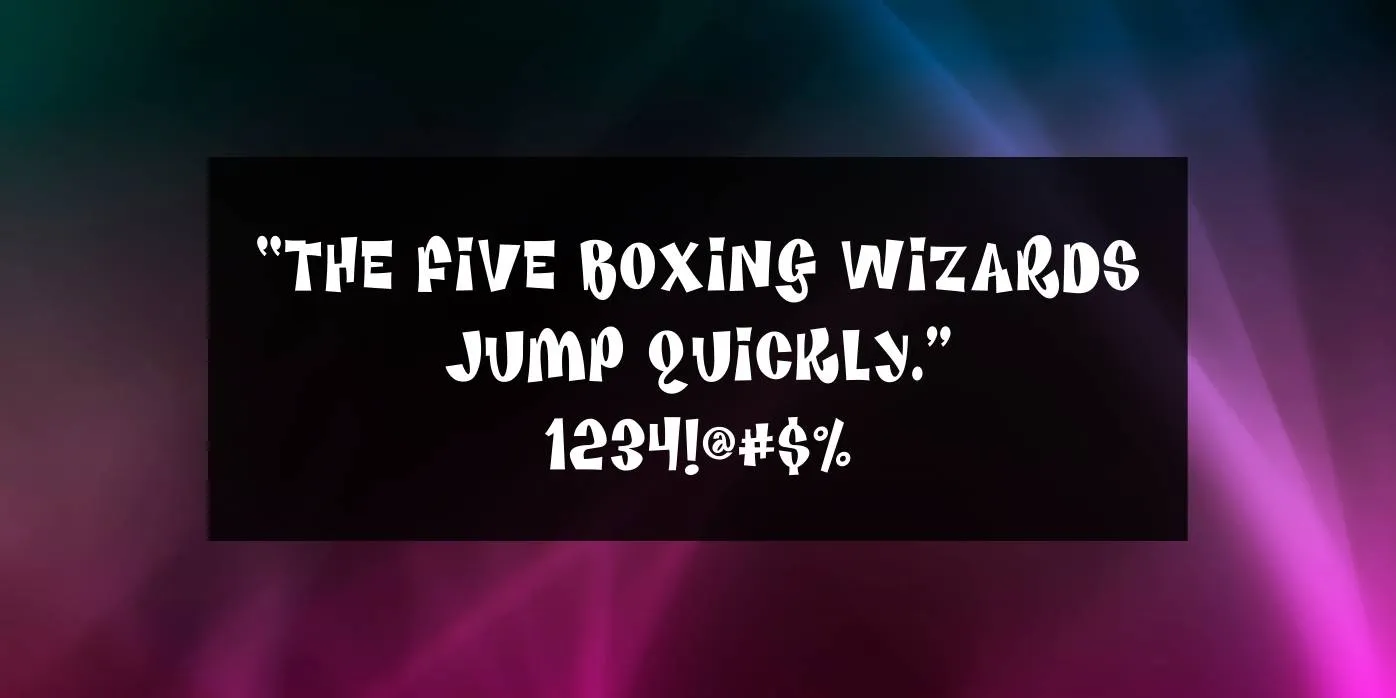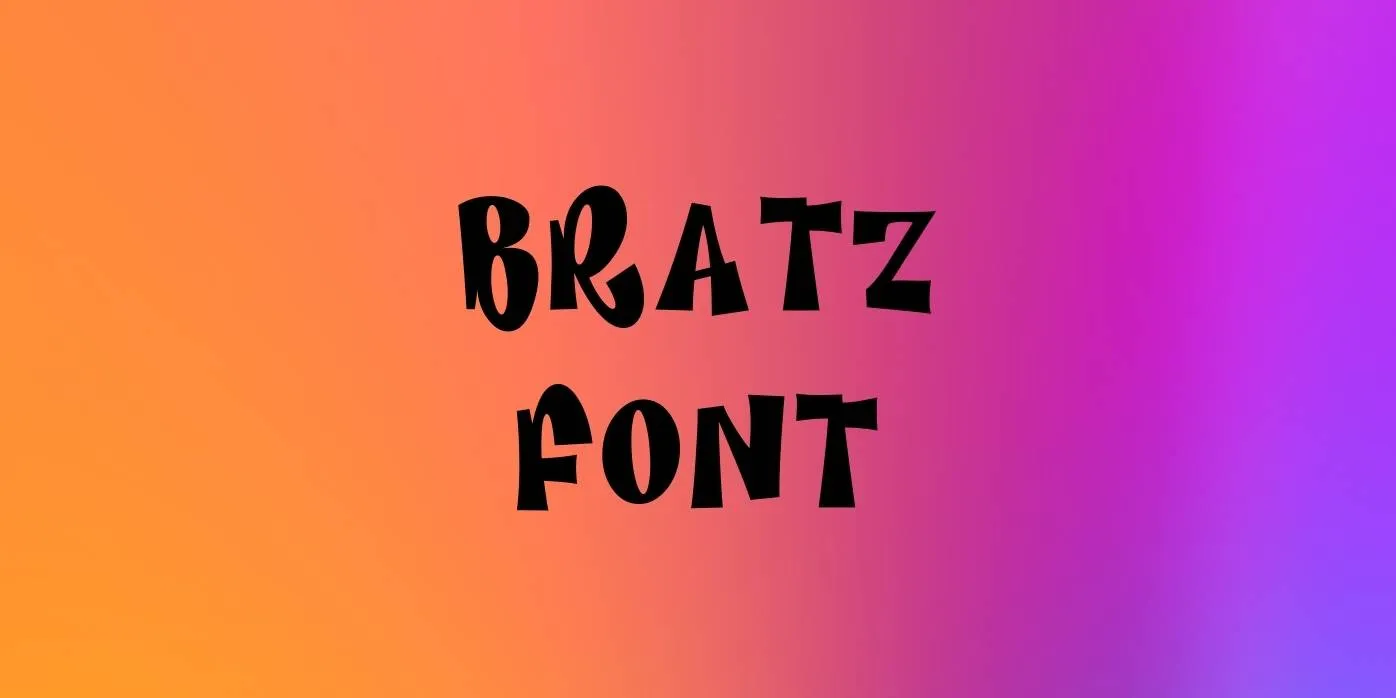
Bratz Font
In this post, we are going to discuss a modern typeface known as Bratz Font. This family was developed and published by Type Associates. This font is a fancy typeface that includes both upper and lowercase letters, as well as numbers and punctuation marks. The overall design is clean and modern, making it a great choice for web and print projects.
One of the most unique features of Bratz Font is its large x-height. This gives the typeface excellent readability, even at small sizes. It is perfect for Canva. It is well specified for CSS and PNG.
You can use donut font which has the same style and characters like this one. Additionally, the wide range of weights (from light to black) means that you can use Bratz Font for everything from body copy to headlines. If you’re looking for a modern fancy typeface with excellent readability, Bratz Font is a great choice. It is best for use on google docs.